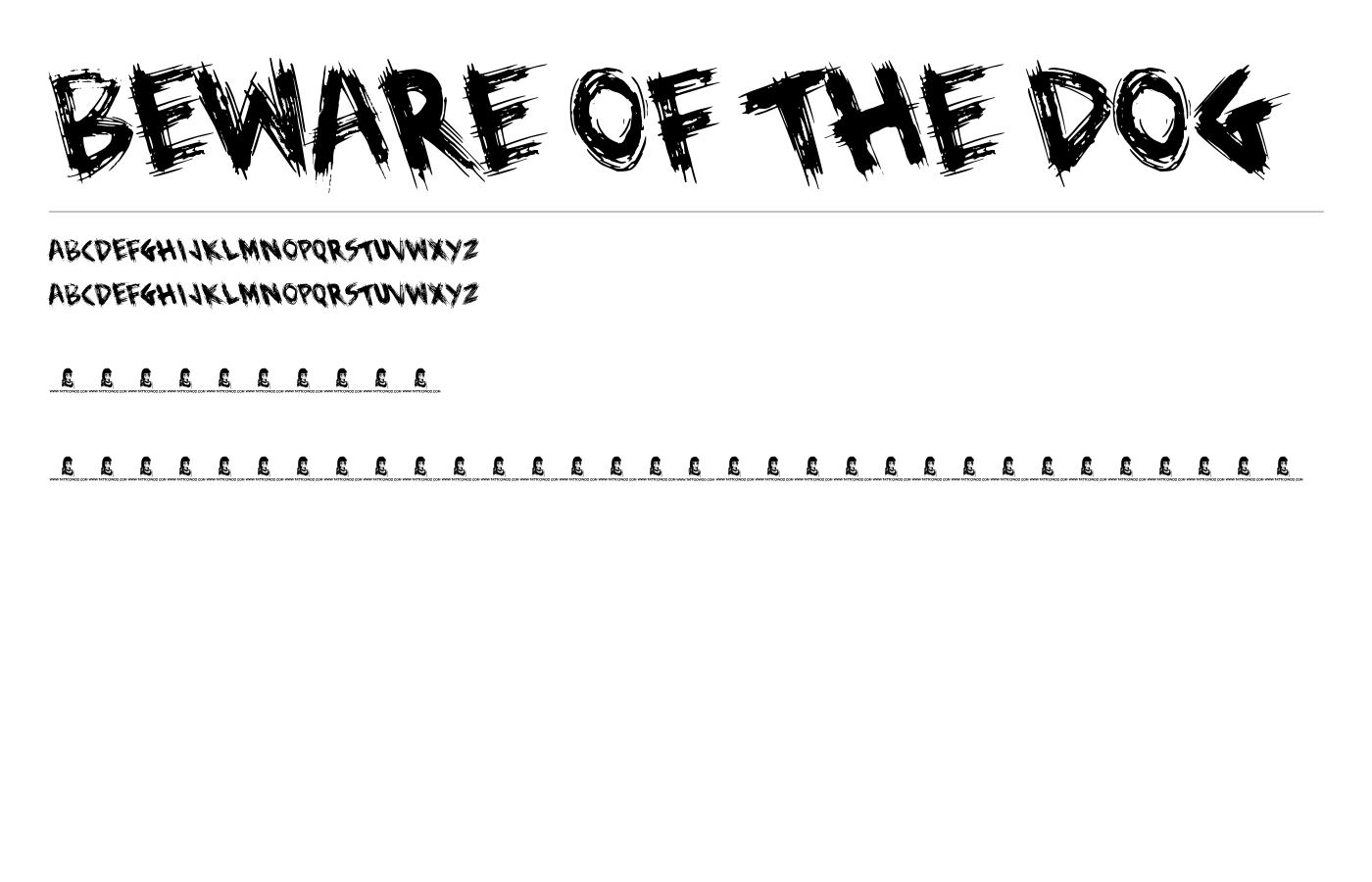
Beware of the Dog is a bold, distressed sans serif font with a rough, hand-drawn appearance that gives it a raw and edgy vibe. Its jagged strokes and uneven texture make it perfect for designs that want to evoke a sense of danger, rebellion, or playful warning. This font works best in posters, logos, and headlines where a strong, attention-grabbing impact is needed.
Beware of the Dog Font
About Beware of the Dog Font